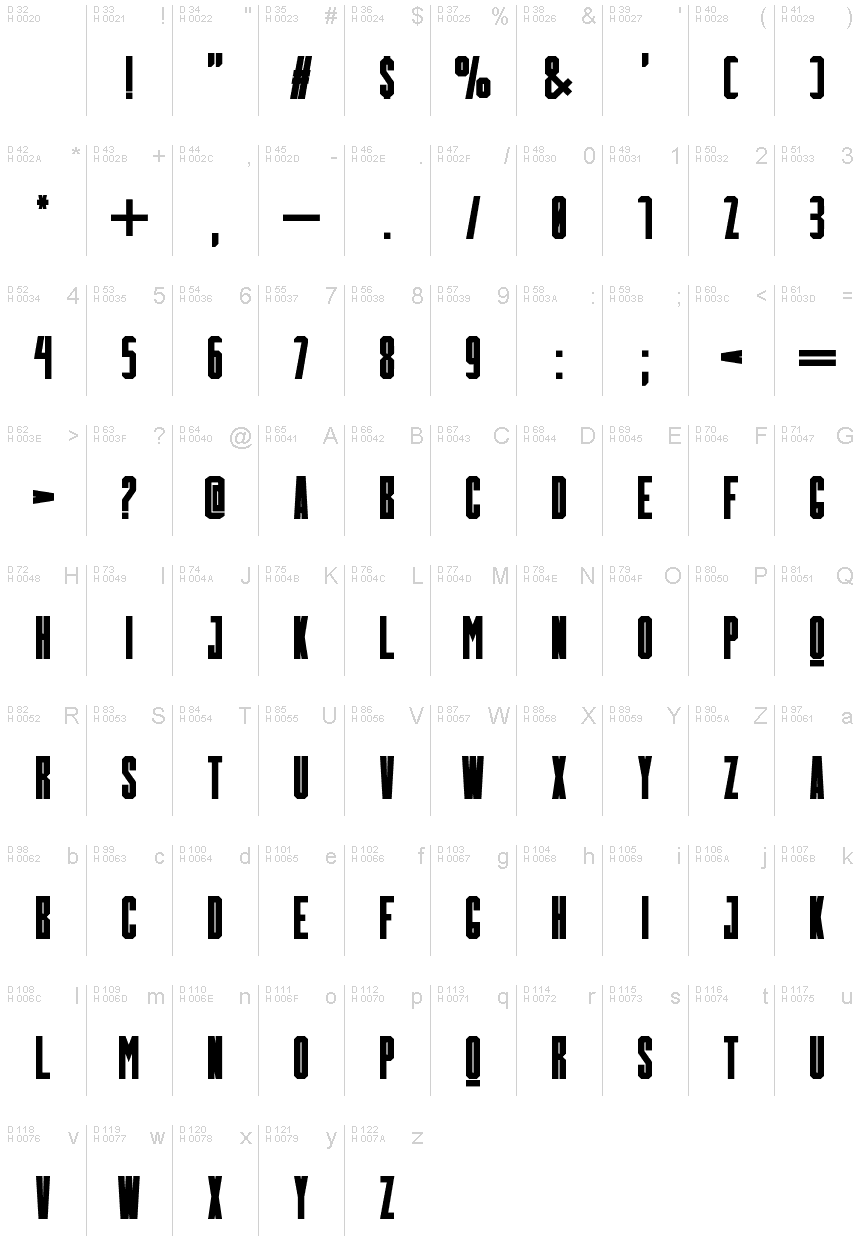
BOULEVARD
BOULEVARD is a vintage outlook Font with a FREE illustration, This font has a powerful character with a vintage design. The font is work specialty is good for product design like a Beer bottle package, Book, T-shirt, or you can use for your logo design, typography design, mountain starter pack, etc. This product is inspirational and playful for your creative design.